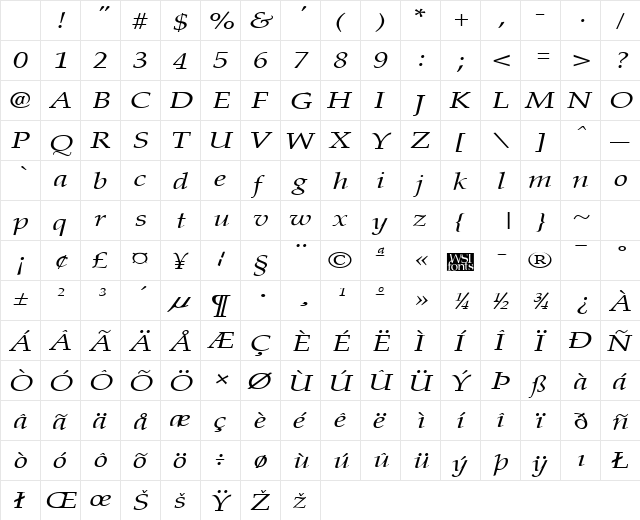
PalisadeBroad Italic
Design Context for PalisadeBroad
PalisadeBroad is a composed and adaptable typeface that performs quietly and consistently across a wide range of design contexts. The slanted form adds forward momentum and visual energy.
Pro Tip: Use PalisadeBroad for emphasis, pull quotes, and subheadings where its slanted energy can add rhythm to the layout.